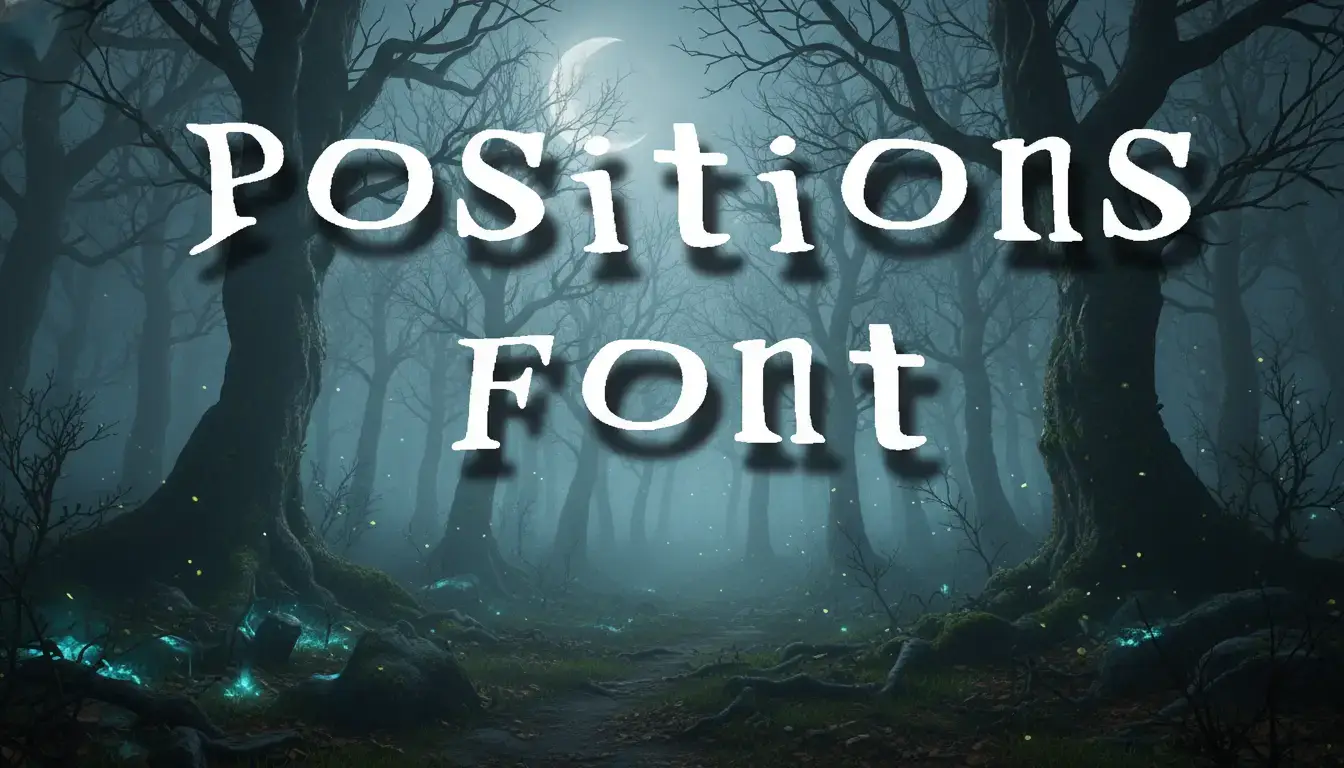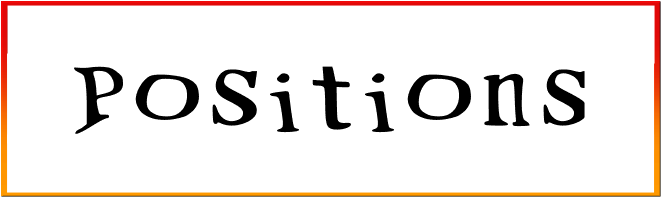
Positions Font
Positions is a fancy font. Bold and full of character, it's built to stand out rather than blend in. You can download it for free and test it with your own words in the preview above.
Positions covers the full alphabet in upper and lowercase, plus all ten numbers, so you can set names, dates and prices without switching fonts. Common punctuation such as ! and ? is included as well. It doesn't include accented letters such as é or ñ, which makes it an English-only font.
Think of Positions for posters, logos and eye-catching headlines. Use it for one standout word or headline and let simpler fonts handle the rest.
No. Positions has no accented letters such as é, ñ or ü, so it's best for English text.